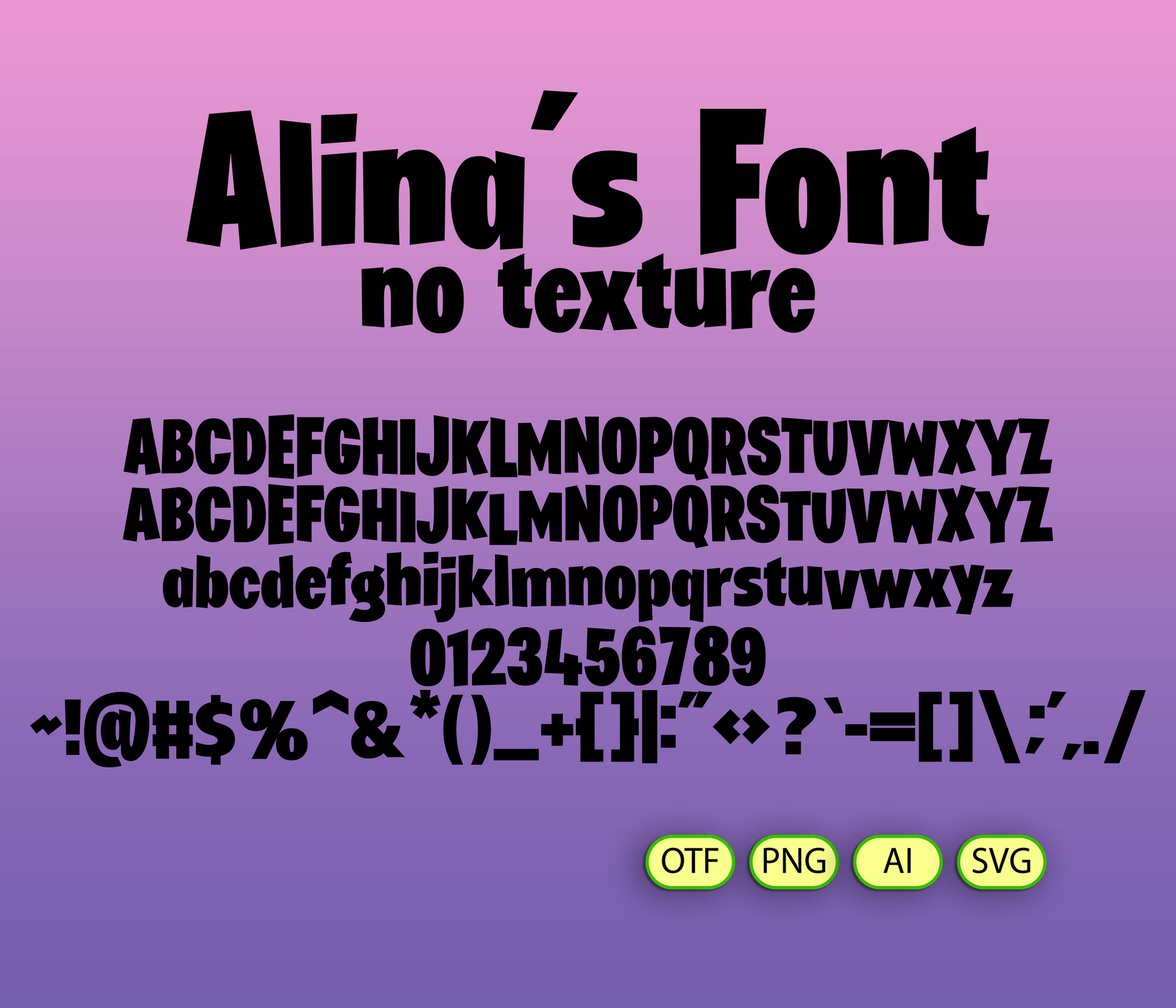
Last Squad Standing Font
Step into the exhilarating world of battle drop gaming with our Last Squad Standing font, capturing the essence of tactical combat and victory celebrations. Perfect for streamers, competitive gamers, content creators, and designers, this font brings the dynamic spirit of multiplayer showdowns to your projects. Create gaming-themed materials, merchandise, or digital content with the high-stakes energy of this ultimate survival arena.
Our Last Squad Standing font features bold, energetic lines and dynamic characters reflecting the fast-paced world of strategic combat. Ideal for:
- Stream Assets: Create engaging overlays, victory screens, and banners for gaming streams that capture the intensity of survival combat.
- Gaming Content: Perfect for highlight reels, montage intros, and social media posts that showcase your combat victories.
- Digital Media: Enhance gaming profiles, streaming channels, and social platforms with dynamic headers and graphics that express the thrill of the drop.
- Community Events: Add authentic flair to gaming tournaments, player gatherings, and competitive showdowns.
- Fan Creations: Bring battle energy to custom merchandise, DIY projects, and gaming setup decor inspired by the world of tactical building.
Our font pays tribute to the beloved world of tactical survival gaming, empowering your designs with its energetic and competitive spirit. Whether crafting stream overlays, designing victory gear, or adding a dynamic touch to personal projects, this font communicates the bold essence of survival gameplay. Ready to inject battle arena excitement into your creations? This font is your key to exciting, impactful design.